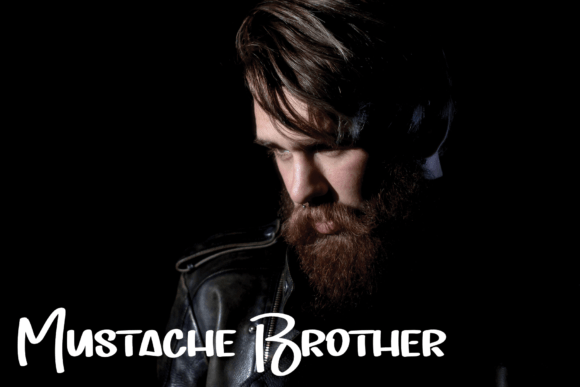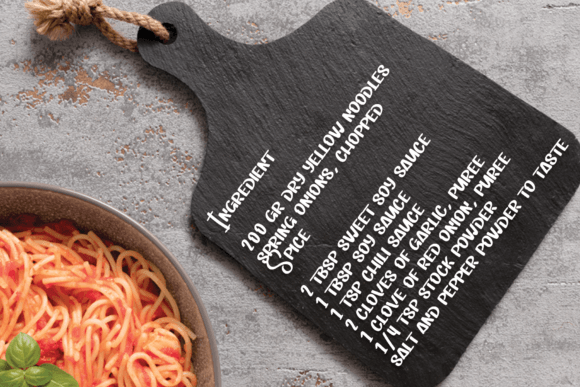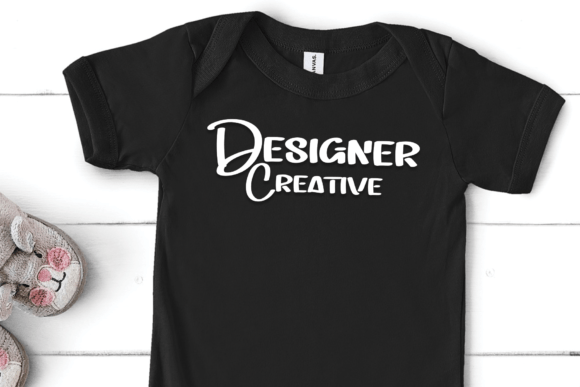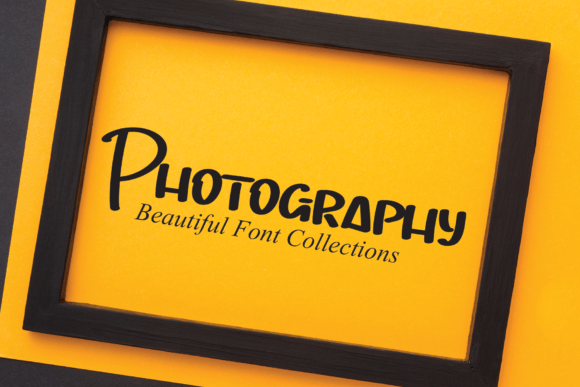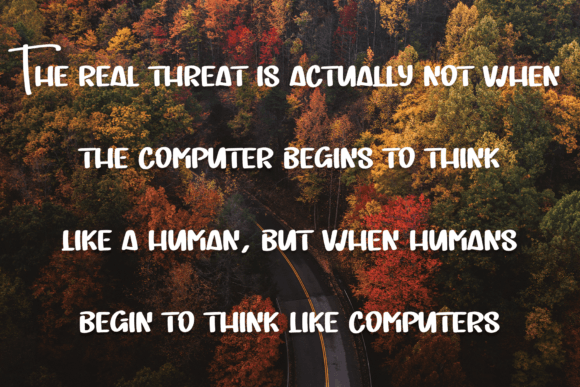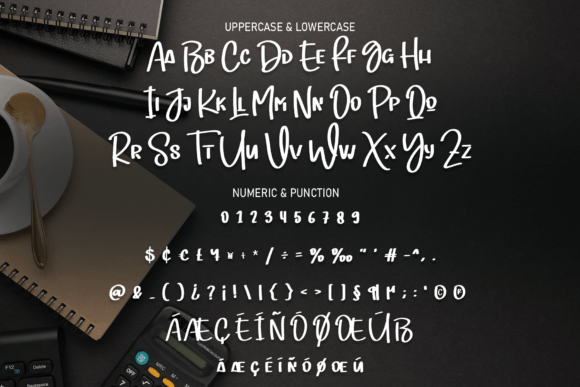
The Ultimate Design Sidekick: A Deep Dive into Engineer Font
I’ll never forget the time I was working on a project for a client who needed a fun and casual font to match their brand’s playful vibe. I had spent hours scouring the internet for the perfect sans serif font, but nothing seemed quite right. That was until I stumbled upon Engineer Font. It was love at first sight! 💕 In this article, I’ll share my experience with Engineer Font, its features, and how to make the most of it in your designs.
An Honest Review of Engineer Font
- ✨ **Versatility**: Engineer Font is a fun and casual sans serif font that can elevate any creation, regardless of the topic or theme.
- ✅ **Clean and Legible**: The font is incredibly clear and easy to read, making it perfect for body text, headings, and titles.
- 💡 **OpenType Features**: Engineer Font comes with a range of OpenType features, including stylistic alternates, glyphs, and ligatures, which can add an extra layer of creativity to your designs.
While Engineer Font is an amazing addition to any font library, there are a few things to keep in mind:
- 🤔 **Limited Serif Options**: As a sans serif font, Engineer Font may not be the best choice for designs that require a serif font.
- ⚠️ **Not Suitable for Body Text**: While Engineer Font is legible, it’s not the best choice for long blocks of body text. It’s better suited for headings, titles, and short paragraphs.
The Story Behind Engineer Font
Engineer Font was designed by a team of creatives who wanted to create a font that was both fun and functional. Inspired by the world of engineering and design, they crafted a font that was clean, legible, and versatile. With its range of OpenType features and stylistic alternates, Engineer Font is perfect for designers, crafters, and creative hobbyists who want to add a personal touch to their designs.
Q: What is Engineer Font?
Engineer Font is a fun and casual sans serif font that’s perfect for designs that require a playful and creative touch.
Q: Is Engineer Font suitable for body text?
While Engineer Font is legible, it’s not the best choice for long blocks of body text. It’s better suited for headings, titles, and short paragraphs.